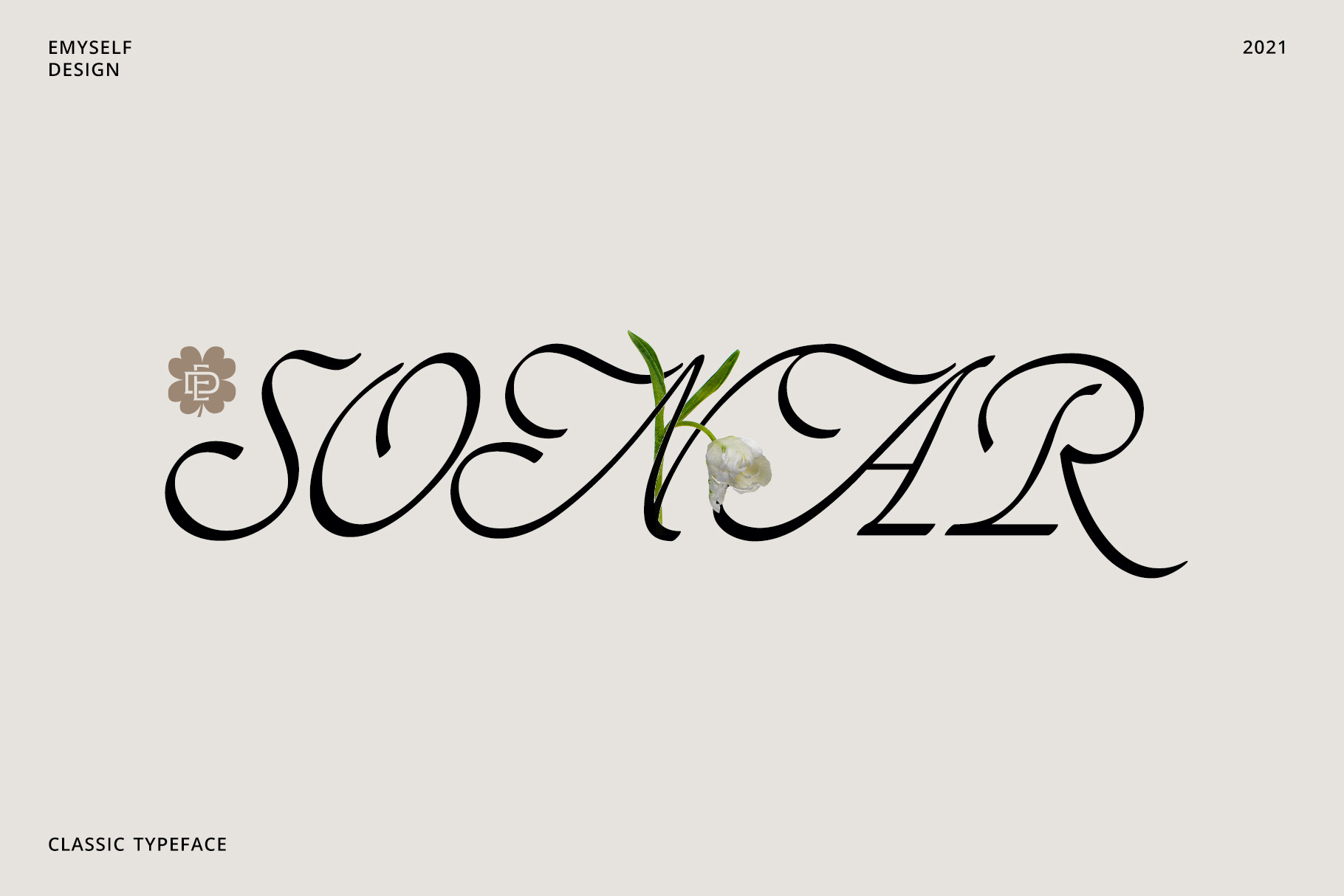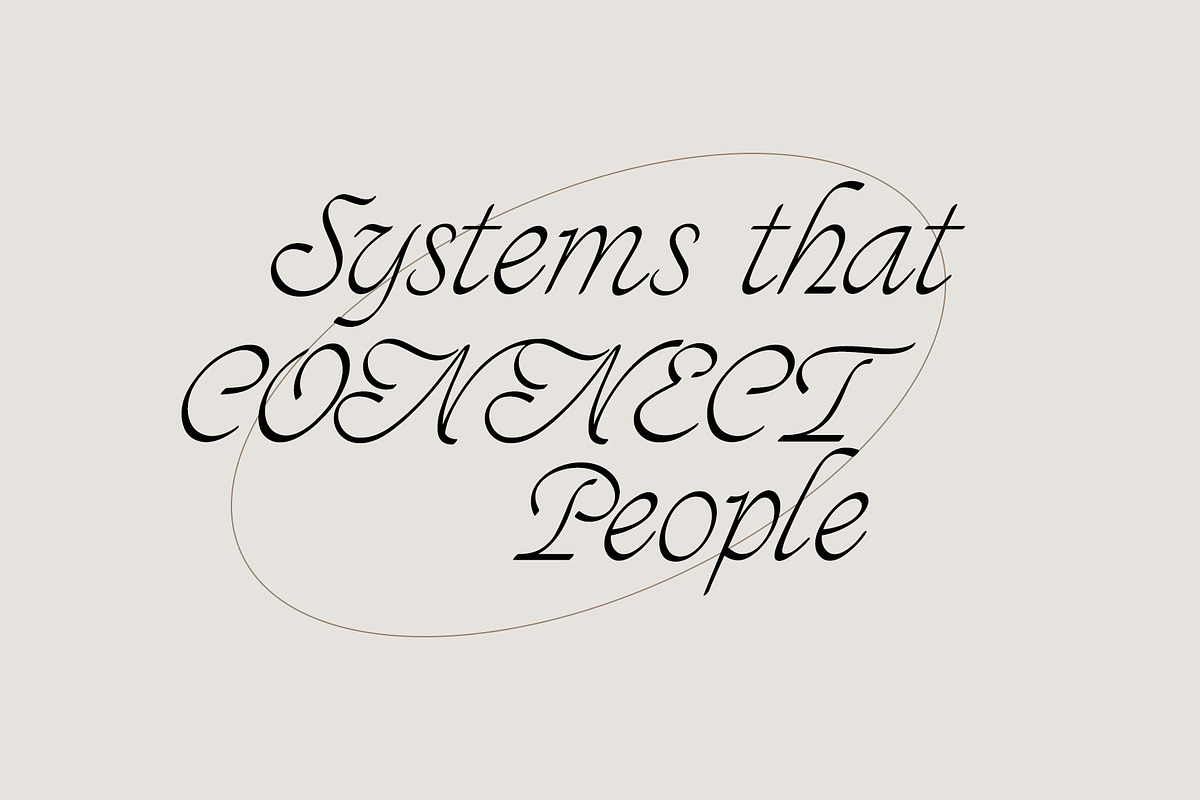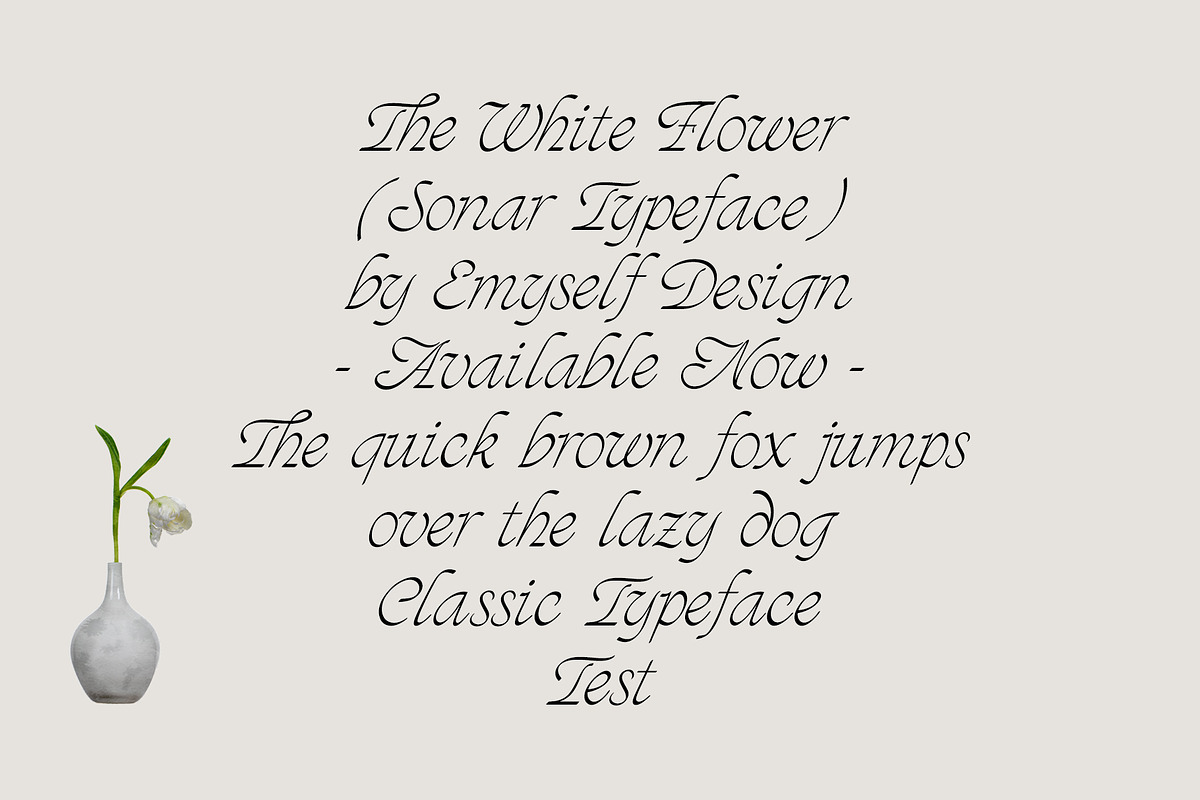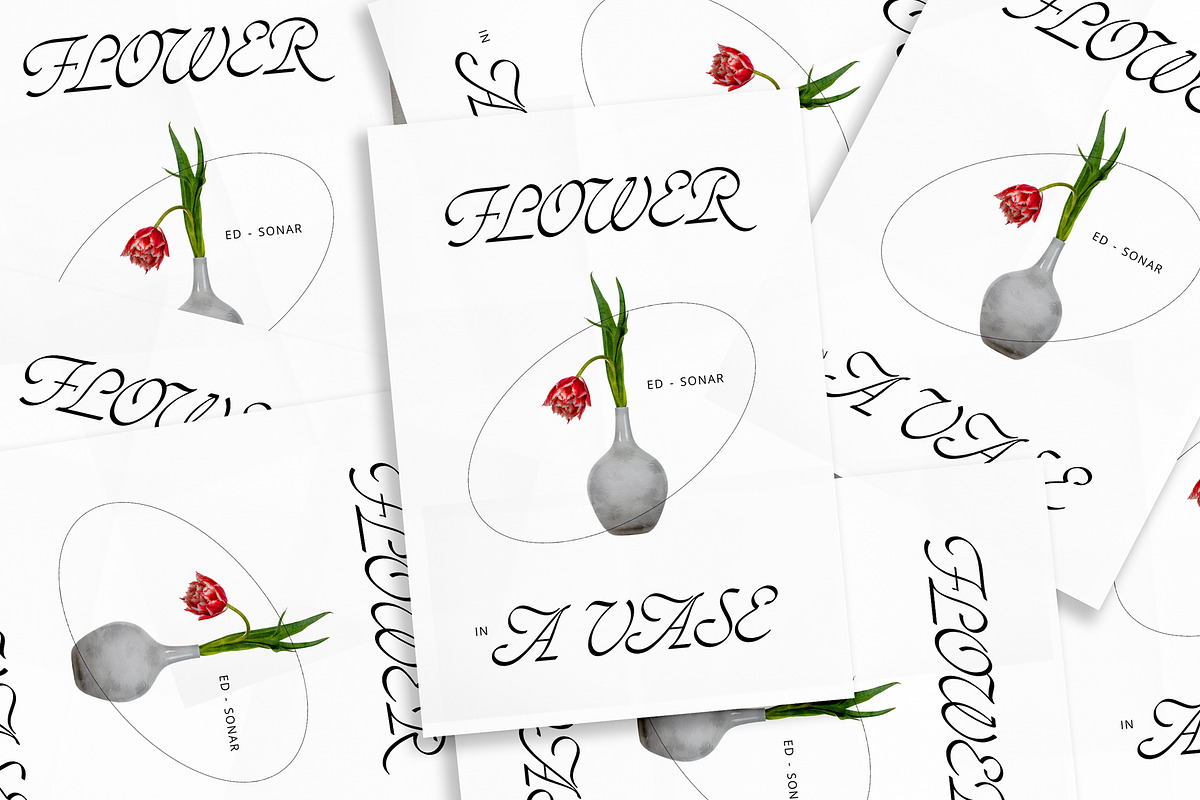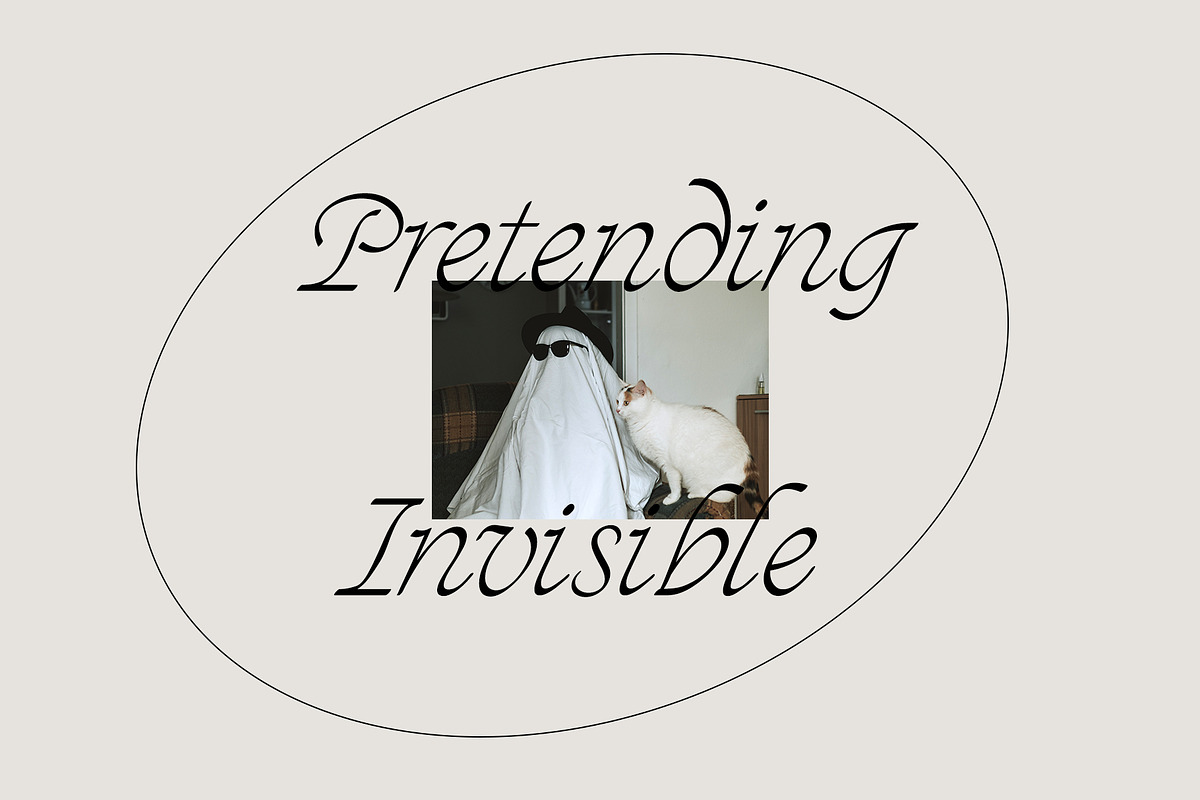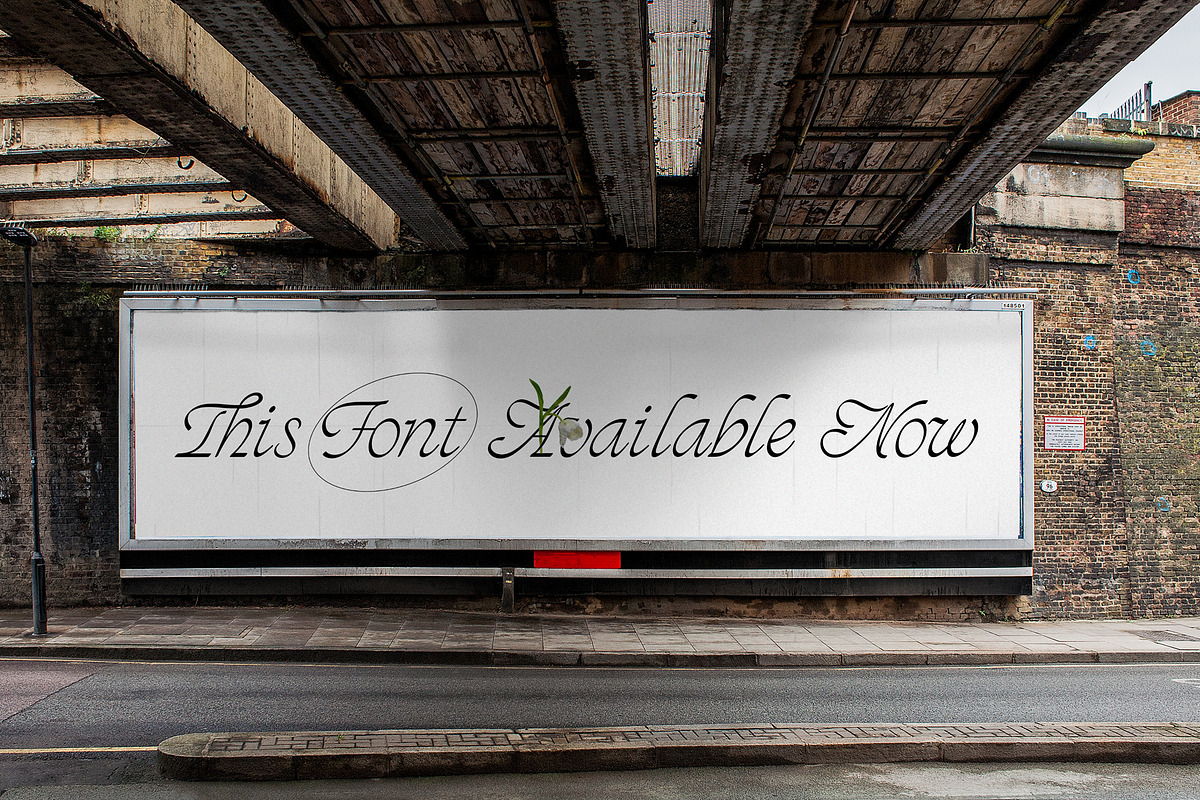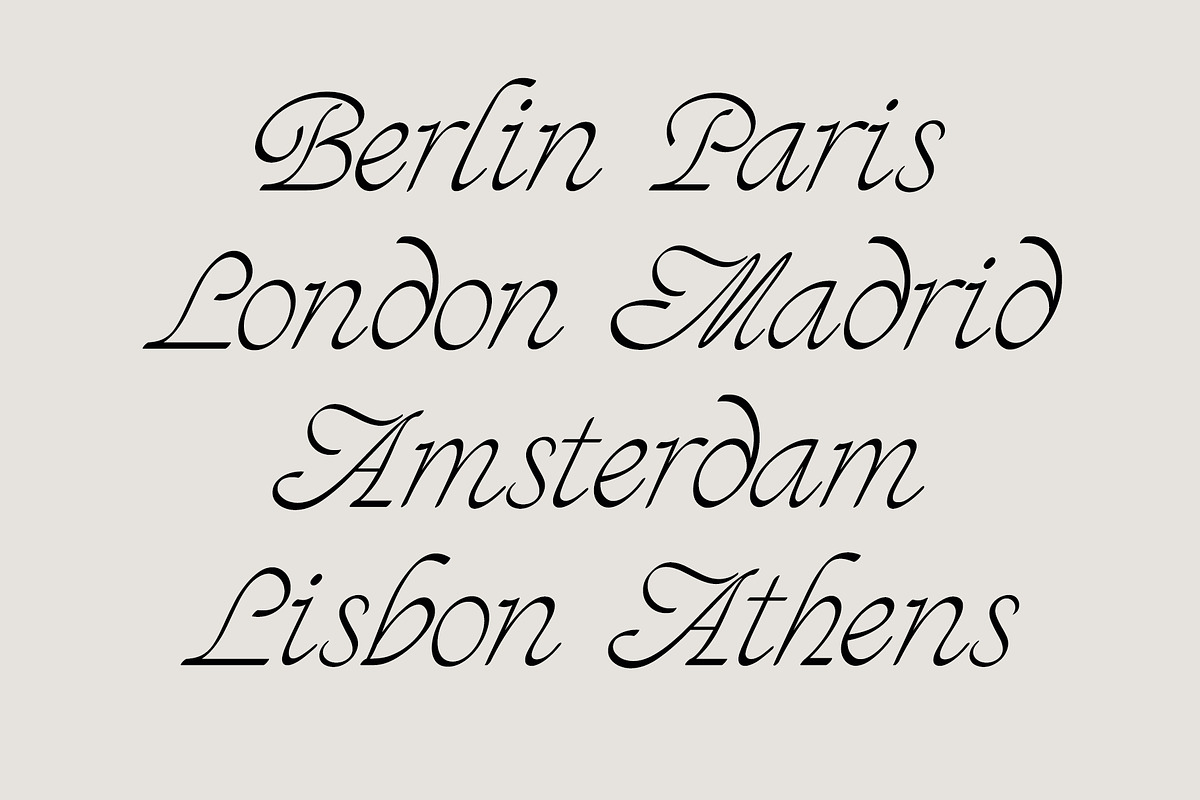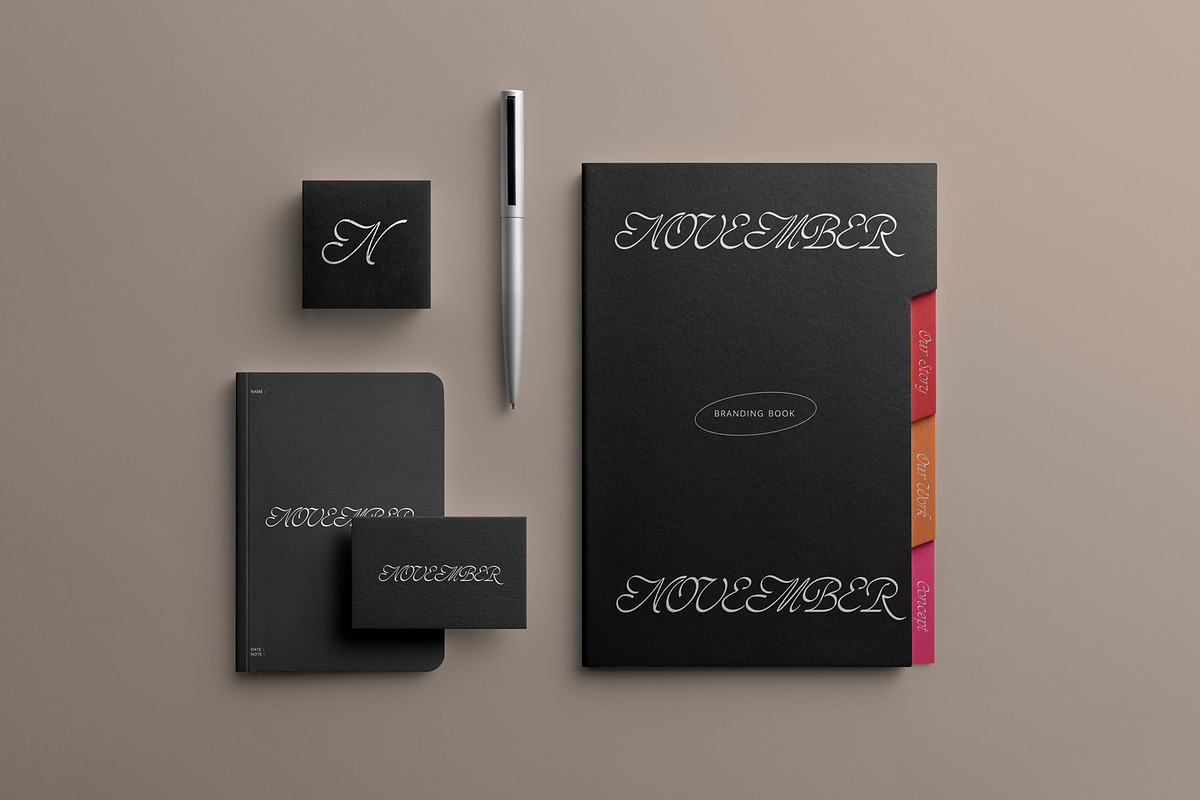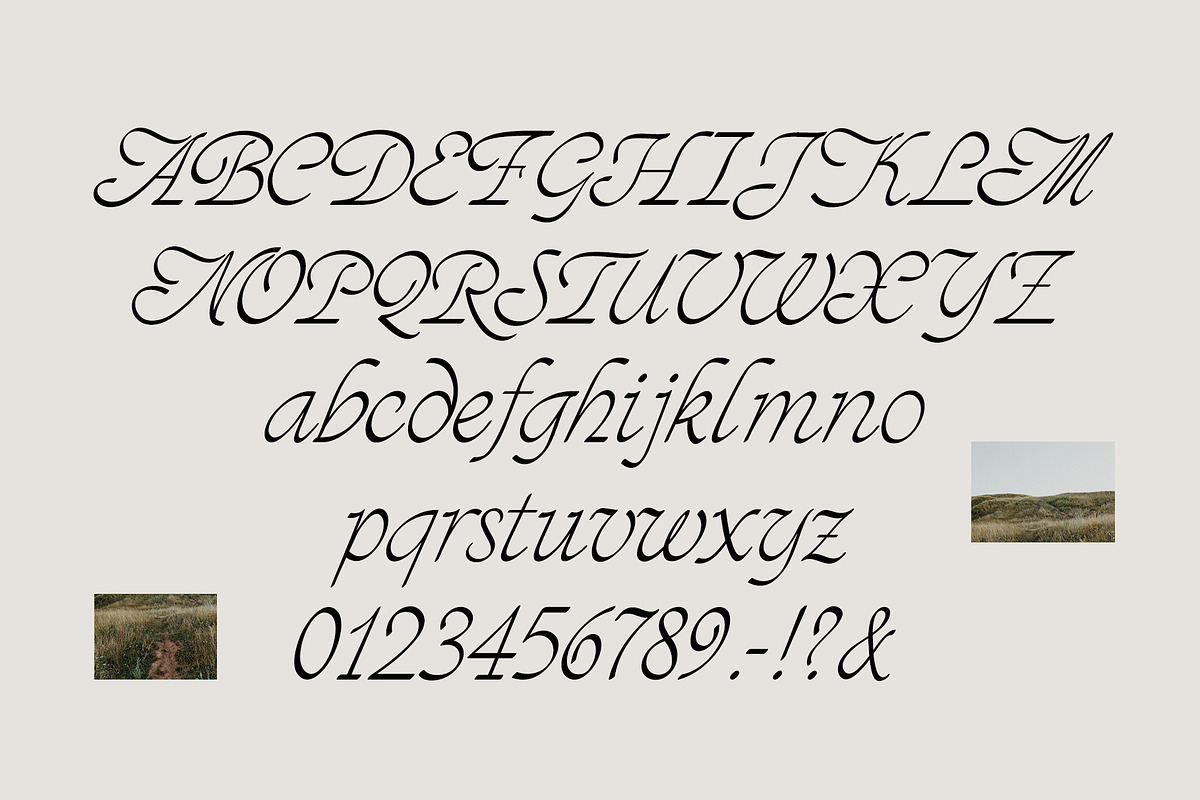
ED - Sonar Typeface
ED Solar is a beautiful classic elegant style script font. This font is inspired by the italic font style combined with a script type font. there are several features such as: Standard character, Ligature, Alternative Character and multi-language support.
- Punctuation and Marks
- Ligatures & Alternative Character